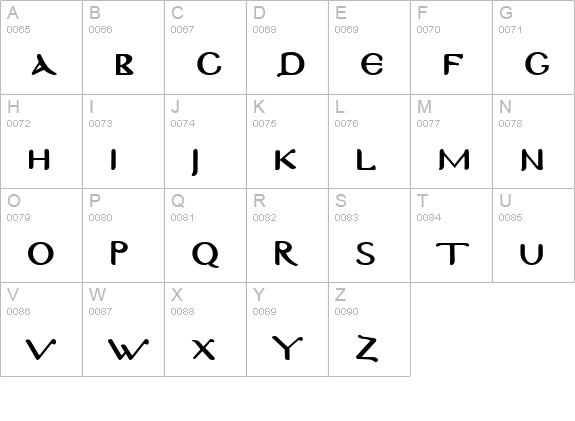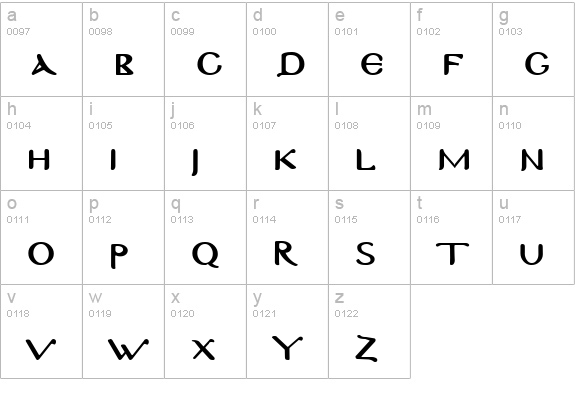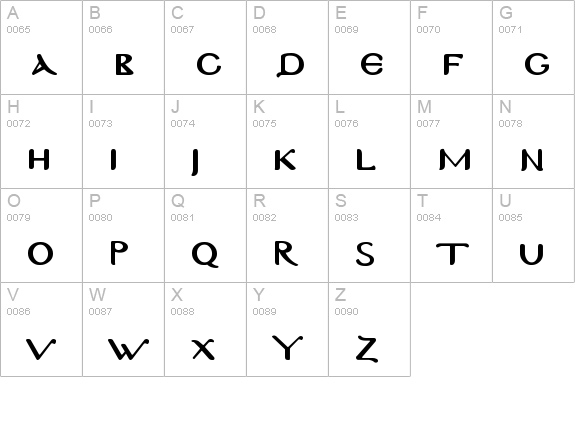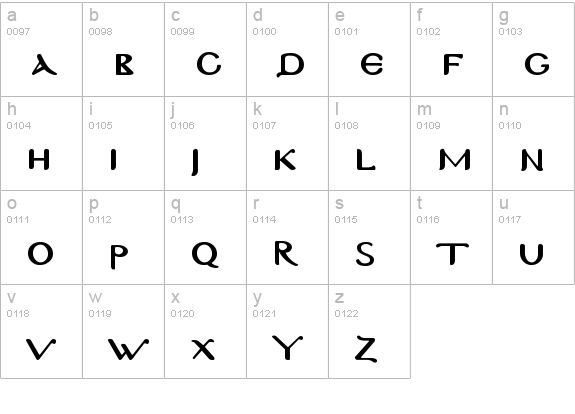
Byzantine-Normal Font Details
Byzantine-Normal is the standard, neutral variant in the Byzantine typeface family \xE2\x80\x94 well suited to general body text, paragraphs, and standard typographic work.
Byzantine-Normal is a classic and elegant font that combines traditional elements with a modern twist. Its timeless aesthetic makes it suitable for a wide range of design projects, from formal invitations to branding materials. The graceful curves and intricate details of Byzantine-Normal exude sophistication and style. This versatile font is perfect for adding a touch of refinement to your designs, whether you're creating a wedding invitation or a luxury brand logo. Its legibility and balanced proportions ensure that your message will be communicated clearly and effectively. Best of all, Byzantine-Normal is available for free download at FontsMarket.com. This means you can easily access this beautiful font and use it in your projects without any cost. Don't miss out on the opportunity to enhance your designs with the timeless beauty of Byzantine-Normal. Download it today and elevate your creations to the next level.